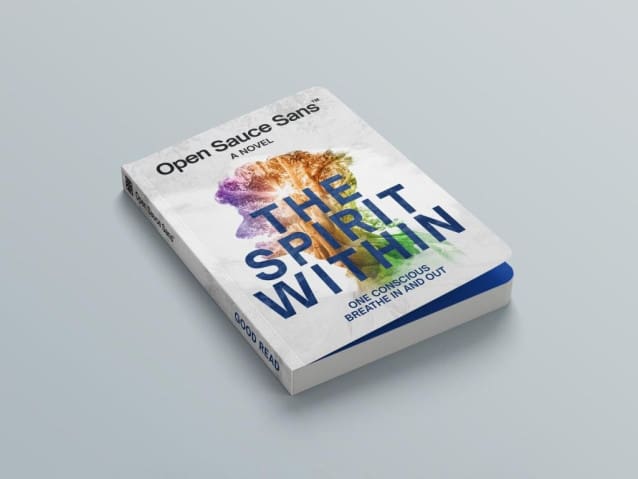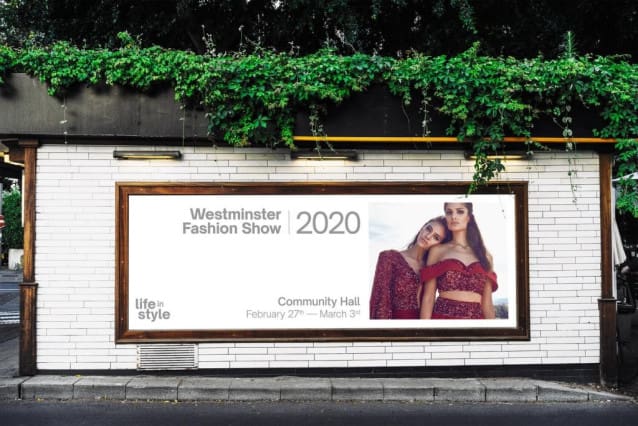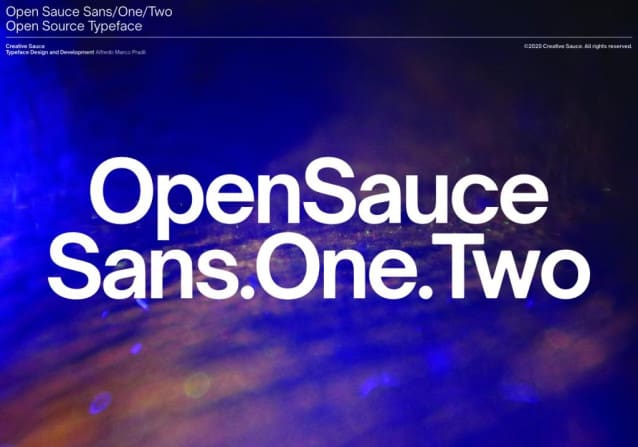
Open Sauce Fonts is a font super family that I developed for Creative Sauce’s internal type system. It is a compact typeface that is optimized for better viewing small text on screen and print. OpenSauce fonts (Sans, One and Two) are under the SIL Open Font License and is going to be actively developed, improved and tested.
Open Sauce Font
| Classification: | Sans Serif Fonts, Style / Aesthetic Fonts |